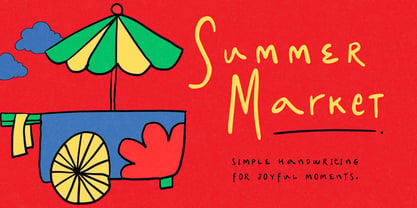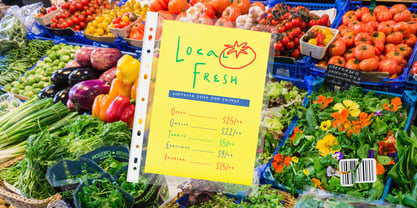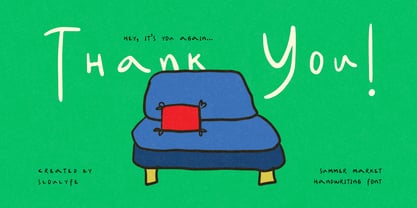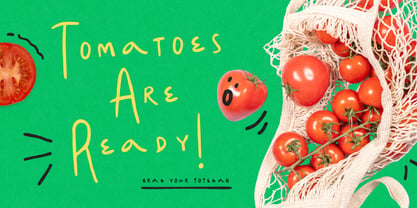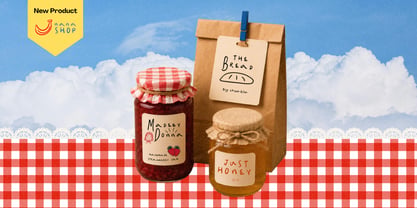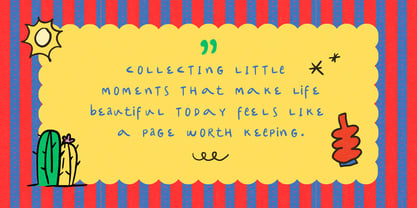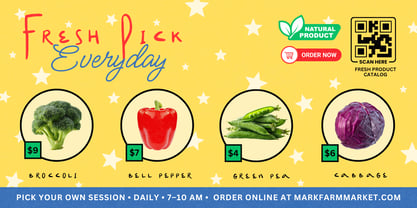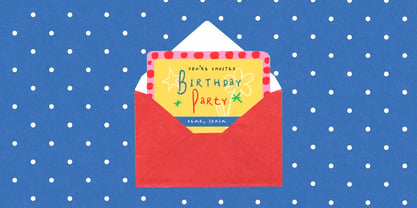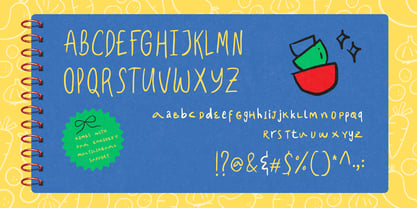
Summer Market
by Sloulyfe Studio
The Summer Market Font Family was designed by Amelia Dian Isnaini and published by Sloulyfe Studio. Summer Market contains 1 styles. More about this family
Summer Market is inspired by the simple pleasures of sunny days, from casual notes and weekend outings to laughter shared under clear blue skies. Its carefree handwritten letterforms dance across the page with a natural rhythm that feels warm and friendly.
Designers: Amelia Dian Isnaini
Foundry: Sloulyfe Studio